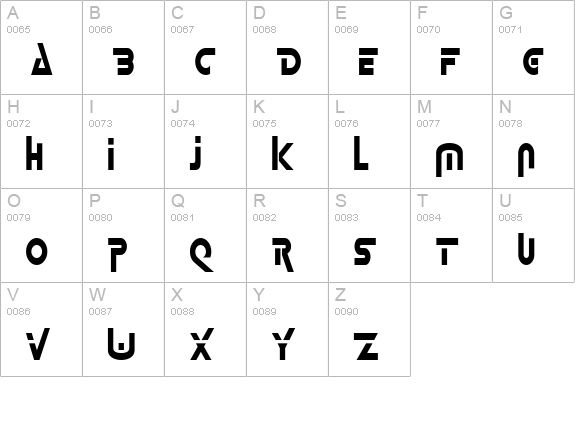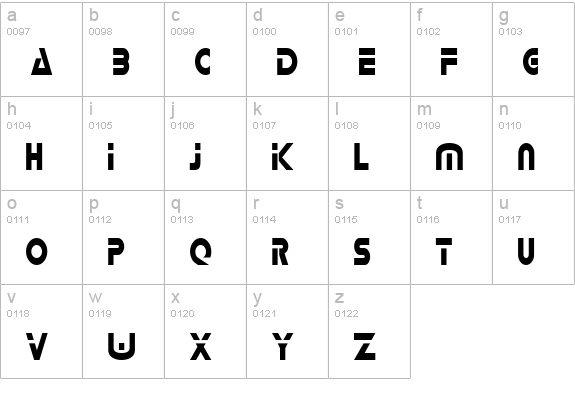
DeltaCondensed Normal Font Details
DeltaCondensed Normal is the standard, neutral variant in the DeltaCondensed typeface family \xE2\x80\x94 well suited to general body text, paragraphs, and standard typographic work.
DeltaCondensed Normal font is a sleek and modern typeface that exudes elegance and sophistication. With its clean lines and compact design, this font is perfect for creating a professional and polished look in any project. The characters are well-balanced and easy to read, making it ideal for both print and digital applications. Best of all, DeltaCondensed Normal font is available for free download at FontsMarket.com. Whether you're working on a branding project, designing a website, or creating marketing materials, this versatile font will add a touch of style and refinement to your work. Don't miss out on the opportunity to enhance your designs with this exquisite typeface, now available for free at FontsMarket.com.